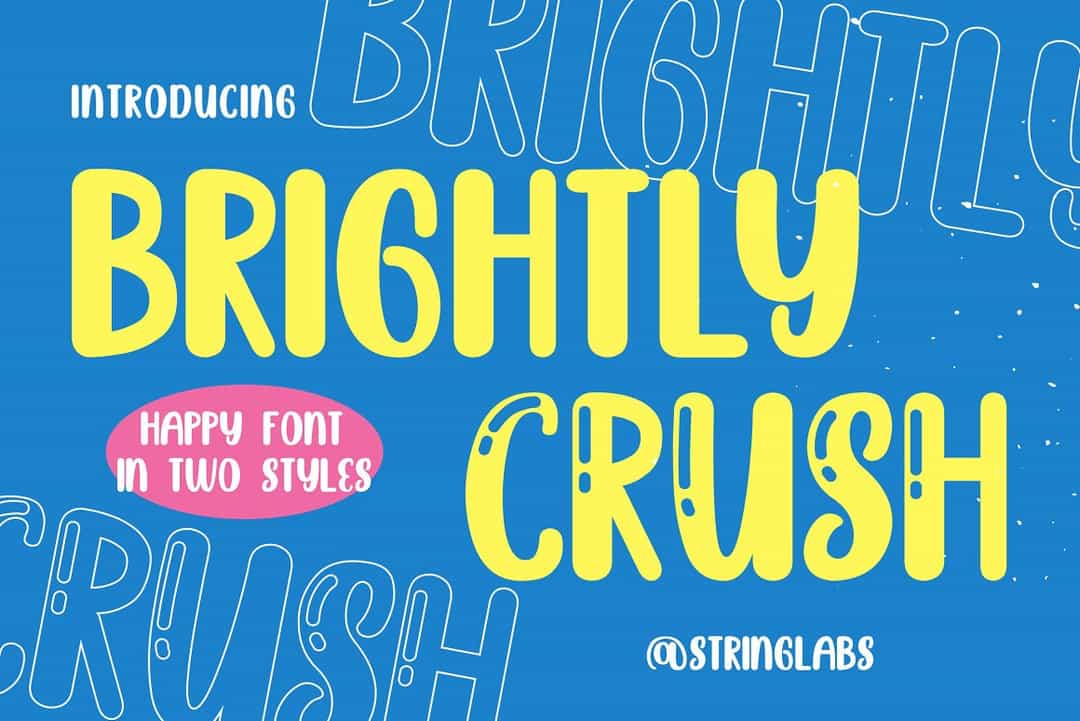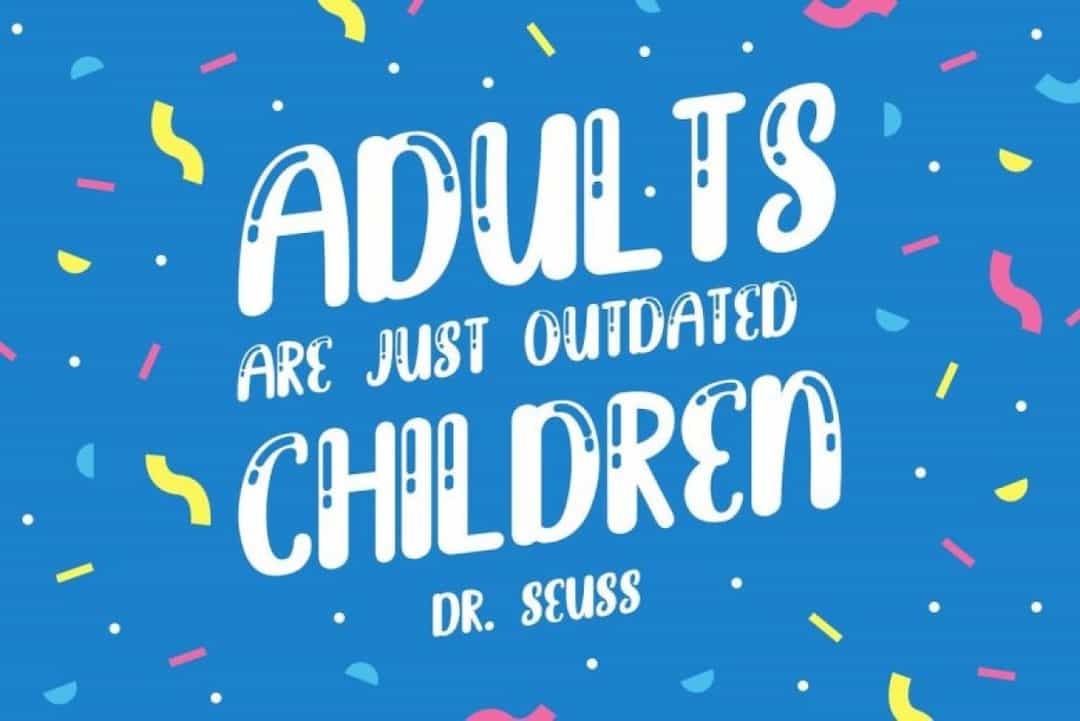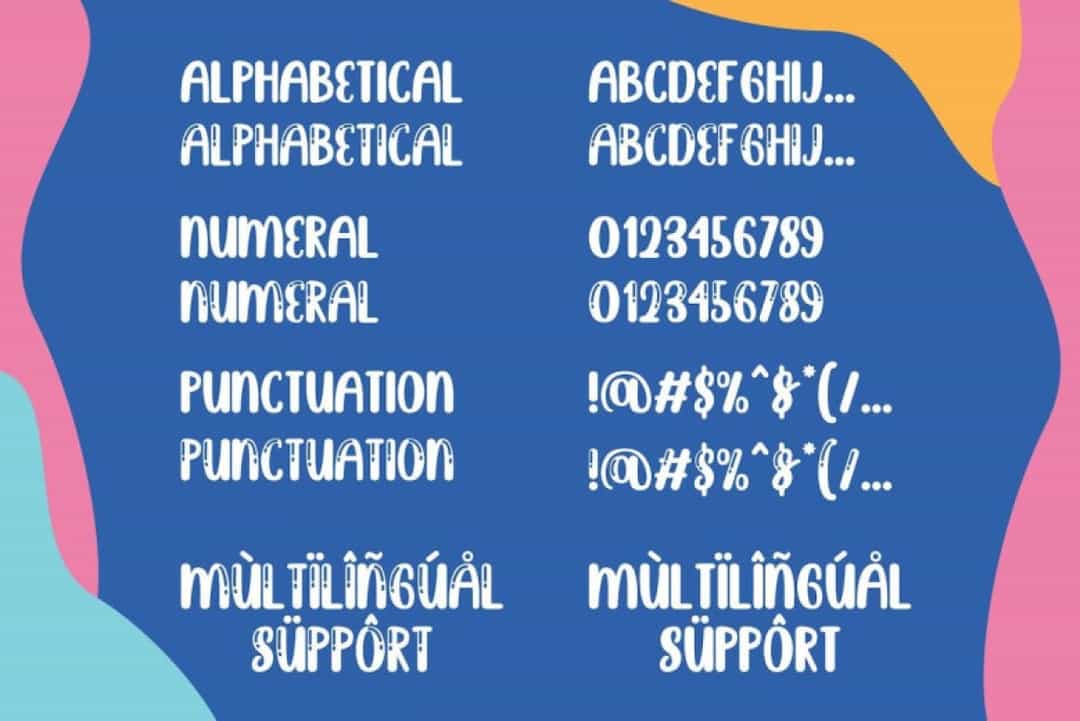
The introduction of the Brightly Crush – Playful Typeface. This font is the right choice for those of you who want to have a children’s style. Fonts Made specifically for purposes such as: Kindergarten, Birthday, Kid, Cartoon, Comic Book. Children and Playful. This Font Template is a combination of Modern, Elegant, Creative, Professional and Unique Concept.